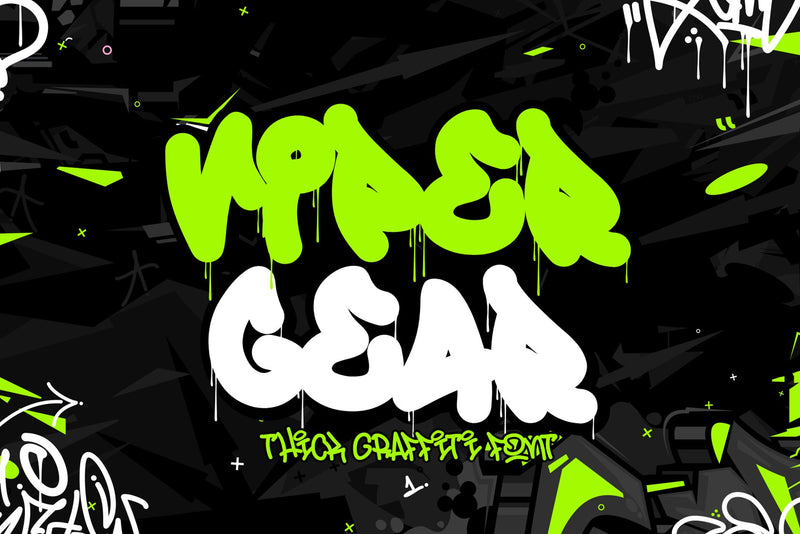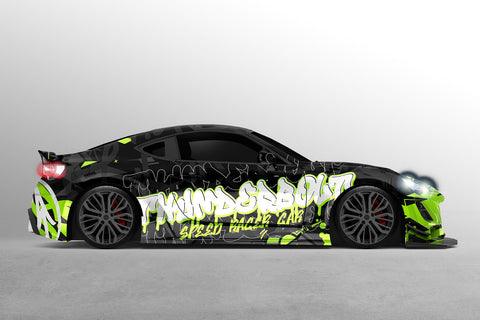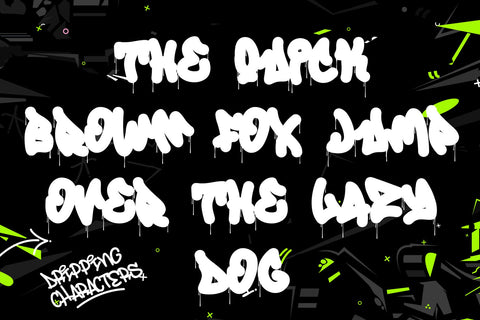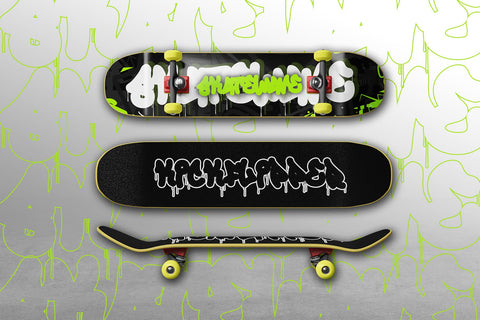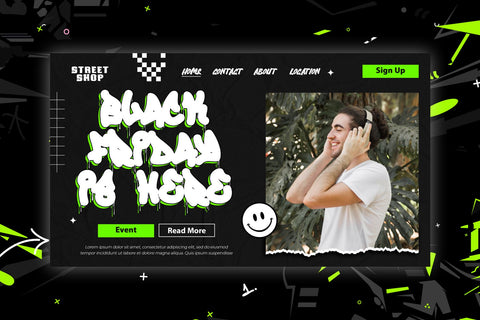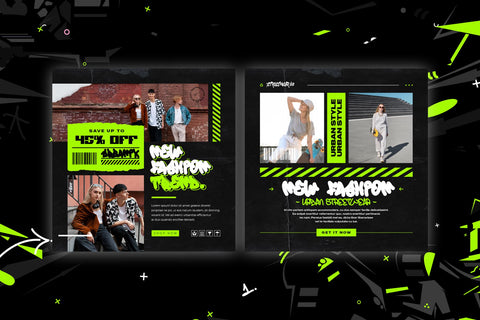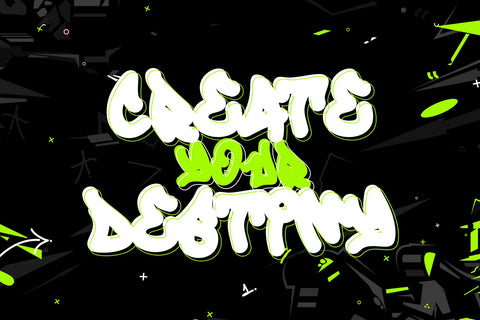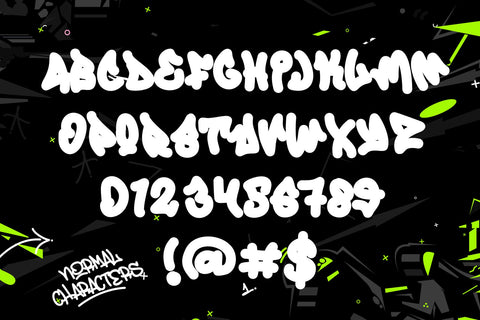
Viper Gear - Dripping Graffiti Font
Unleash the gritty spirit of the streets with the audacious "Viper Gear". This graffiti-style font underscores the raw, nonconformist beauty of urban aesthetics, marrying bold strokes with edgy design elements. "Viper Gear" stands bold and unique with its dual-style character: a pure form and a daring dripping version that brings authenticity to your designs by infusing the dynamic fluidity of genuine street art. This characteristic spillover lends an energetic rhythm to your layouts, transporting viewers straight to the heart of the city's pulse. Whether it's city-centric posters, edgy street fashion labels or any creative endeavor seeking a typographic style that's audacious and impactful, "Viper Gear" speaks volumes. Immerse your work in the vibrant dynamism of city life with "Viper Gear", a font that captures the relentless energy of urban landscapes.
- Dripping Graffiti Characters looks